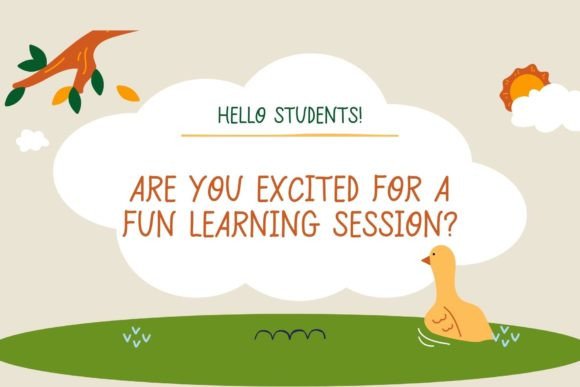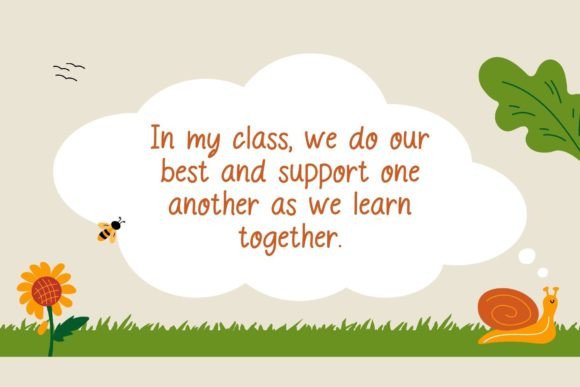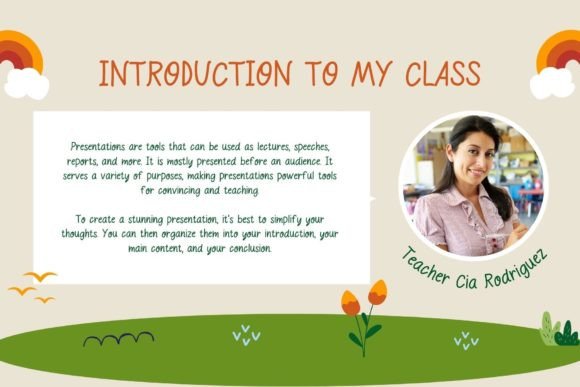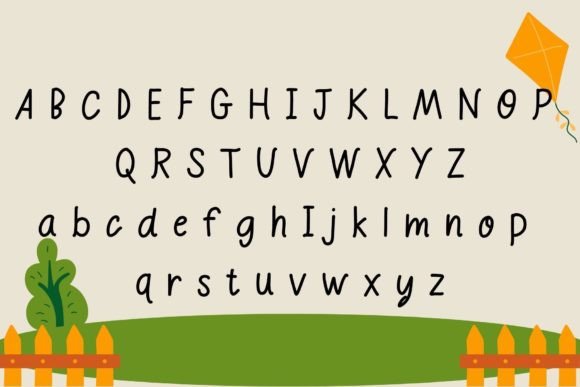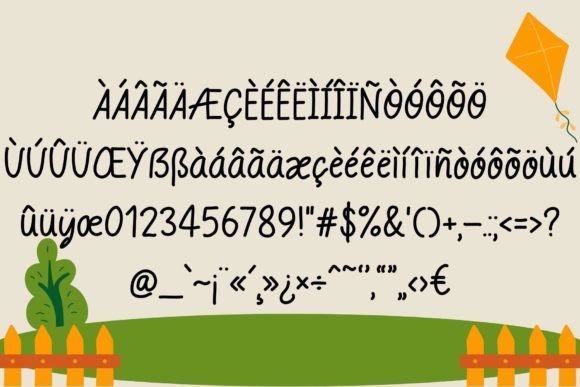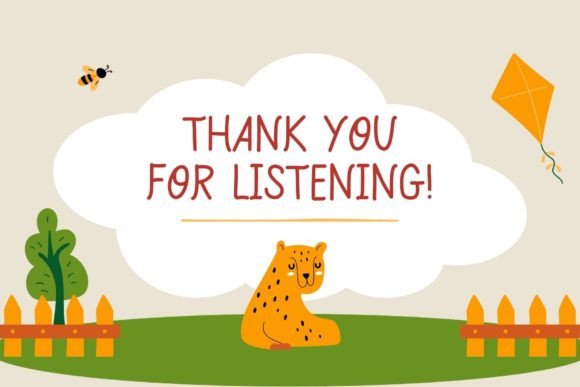
Introduction to Sinestrea Font
Have you ever stared at a blank canvas, unsure of how to bring your creative vision to life? For designers, finding the perfect font can be the missing piece that sets their project apart. One such gem is the Sinestrea Font – a charming, handwritten sans-serif that’s sure to elevate your next design project.
Whether you’re crafting a beautiful wedding invitation, a playful logo, or a birthday card, Sinestrea Font’s high-quality design makes it an invaluable resource for any creative endeavor. Its transparent background and free download feature make it an attractive addition to your design arsenal, allowing you to experiment with different styles and themes without breaking the bank.
With its unique, whimsical flair, Sinestrea Font is the perfect tool for designers looking to add a personal touch to their projects. In this article, we’ll delve into the world of this delightful font and explore its many uses, making it easier for you to unlock its full creative potential.
Key Features of Sinestrea Font
- Unique and modern font style, ideal for designers and artists looking for a distinctive look
Honest Review: Sinestrea Font
As a designer, I’m always on the lookout for high-quality design resources that can elevate my creative projects. The Sinestrea Font caught my attention with its unique and stylish design. Here’s my honest review.
- Easy to read and use in various contexts
Overall, the Sinestrea Font is a great design resource for designers looking for a high-quality, unique font. While it has some limitations, its free download option and stylish design make it a great addition to any creative project.
Tips for Getting the Most Out of Sinestrea Font
For optimal results, use Sinestrea Font on a transparent background to create a seamless design. Experiment with different font sizes and styles to find the perfect combination for your creative project. With its high-quality design, Sinestrea Font is a great resource for designers of all levels.
Sinestrea Font is perfect for designers working on creative projects, such as logos, posters, and social media graphics. Its transparent background and high-quality design make it a great resource for designers looking to add a unique touch to their designs.
Alternatives to Sinestrea Font
Montserrat is a modern sans-serif font that works well for creative projects, especially those with a transparent background. It’s a high-quality design resource that’s free to download and use. Montserrat is ideal for headings and titles, adding a touch of sophistication to any design. Compared to Sinestrea Font, Montserrat has a more geometric feel, making it perfect for modern and minimalist designs.
Lato is a clean and elegant sans-serif font that’s suitable for a wide range of creative projects. It’s a high-quality design resource that’s free to download and use, making it an excellent alternative to Sinestrea Font. Lato is ideal for body text, as it’s highly readable and easy on the eyes. Compared to Sinestrea Font, Lato has a more relaxed feel, making it perfect for designs that require a touch of warmth and approachability.